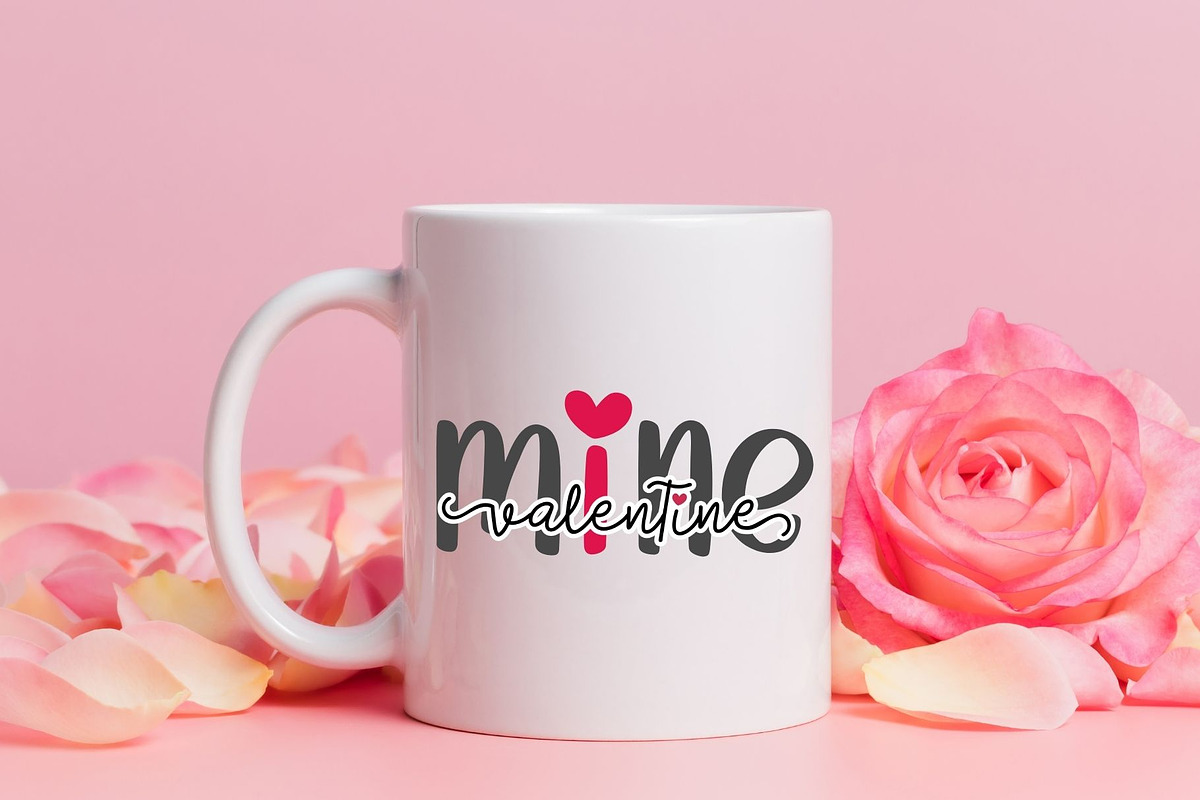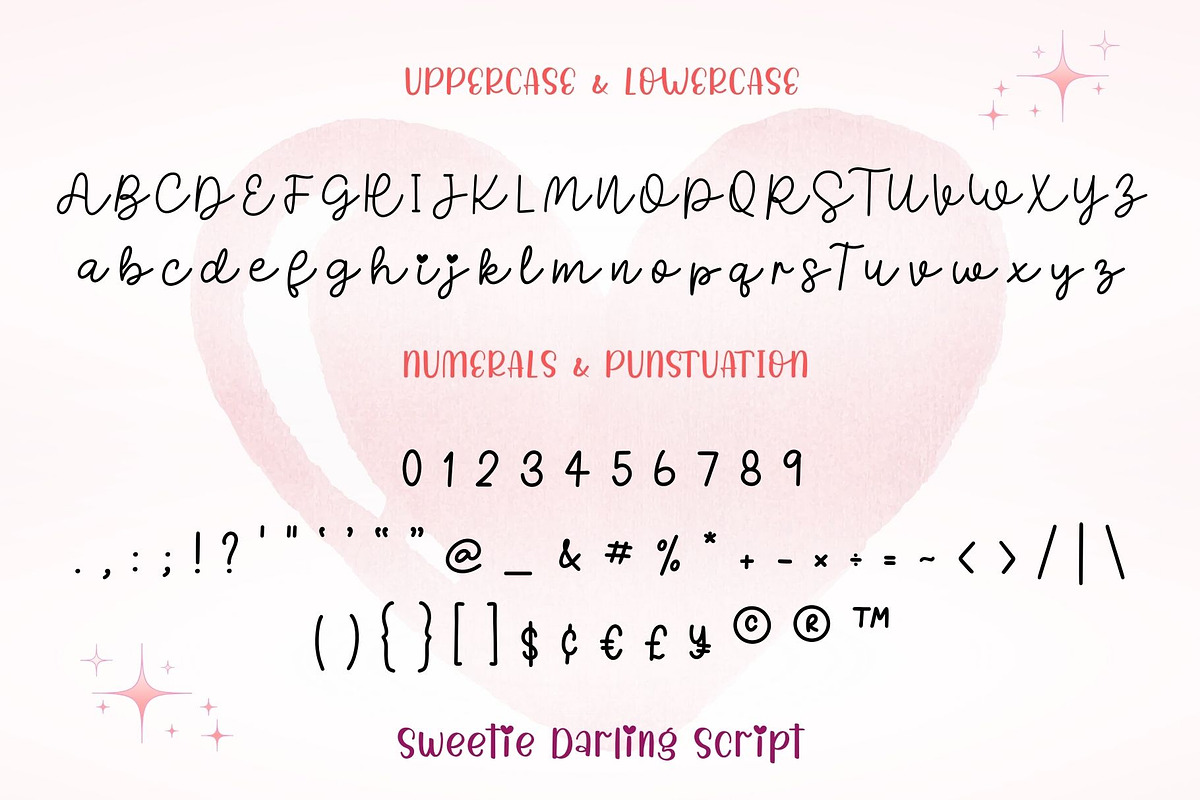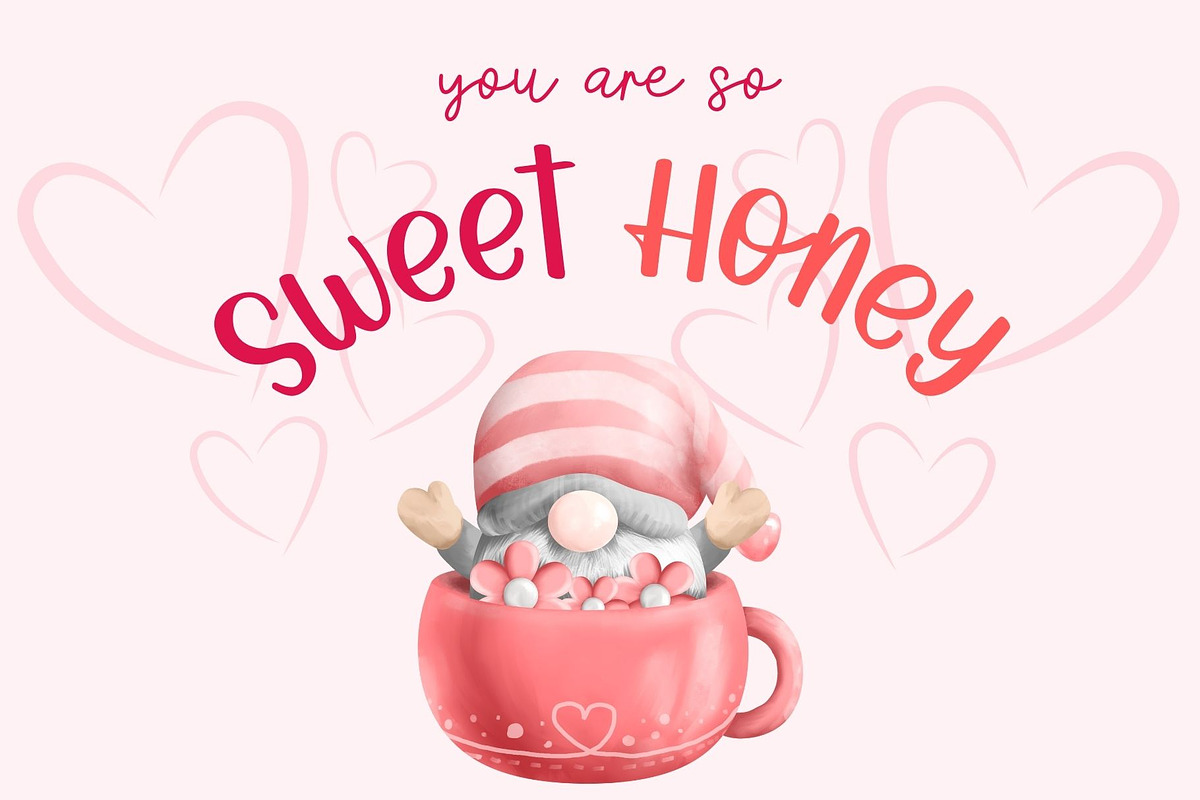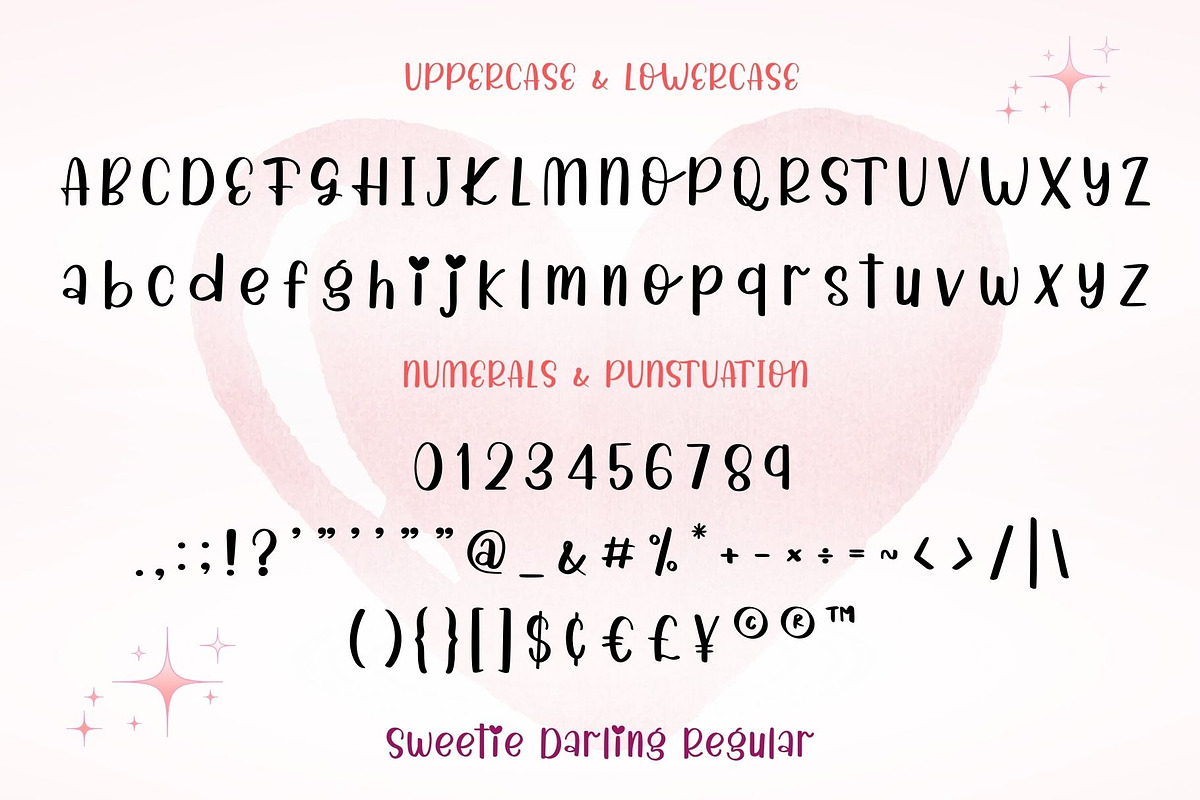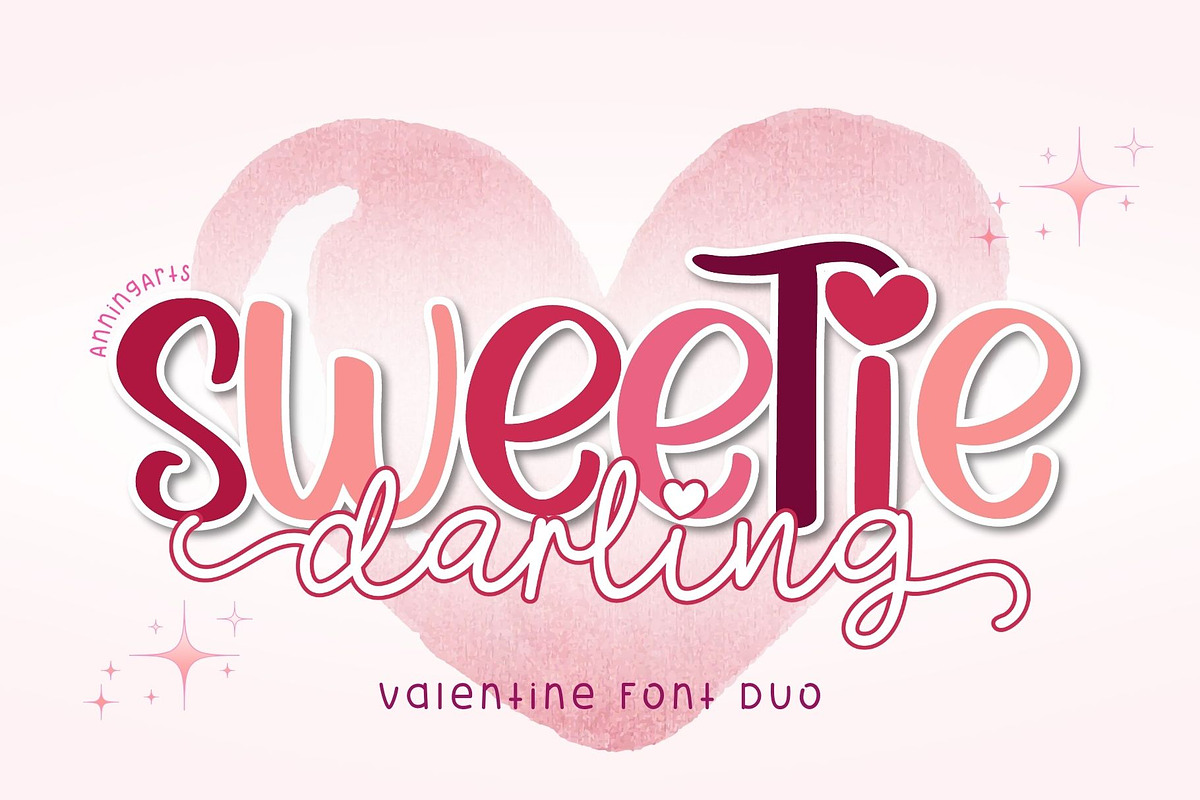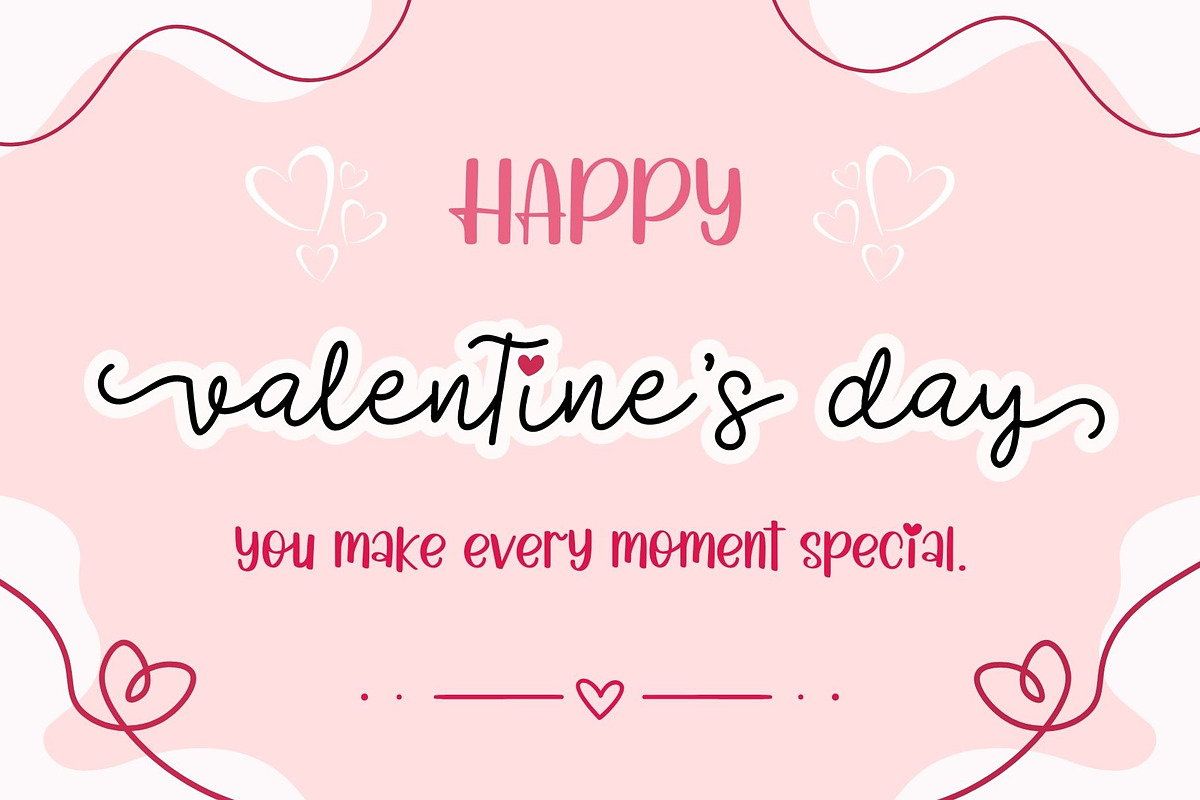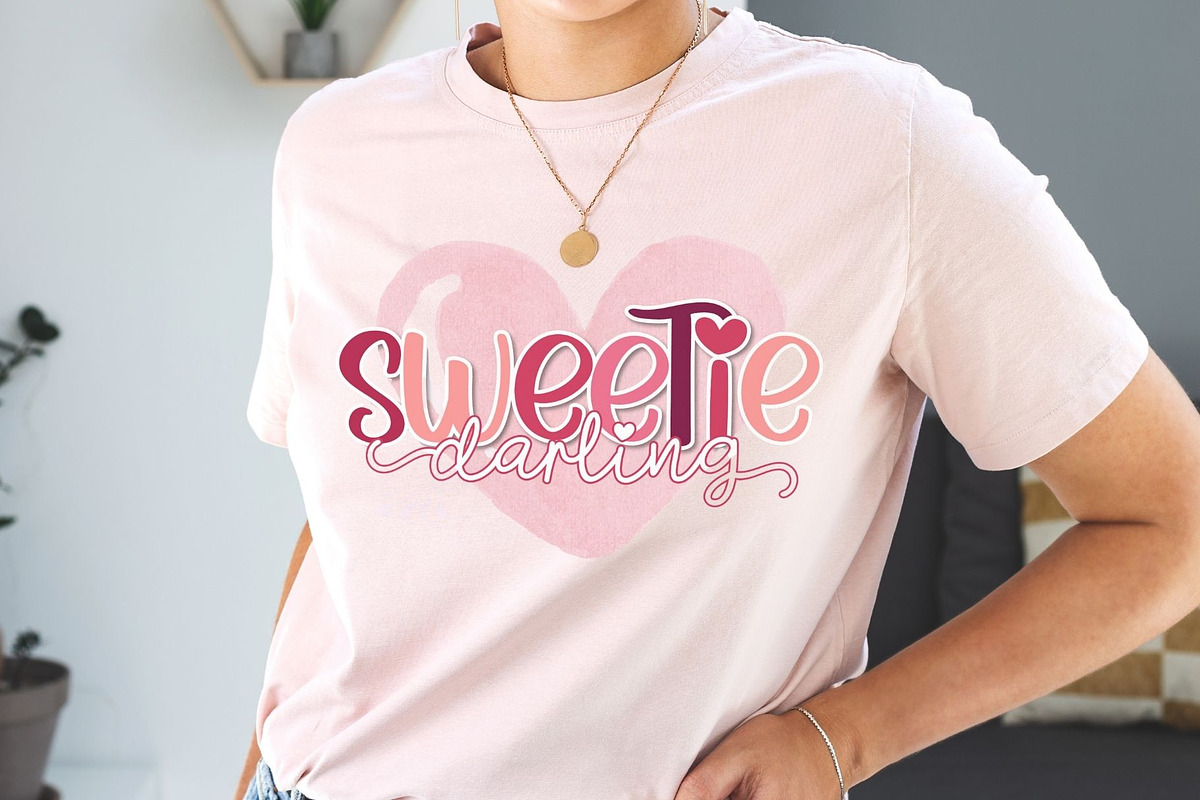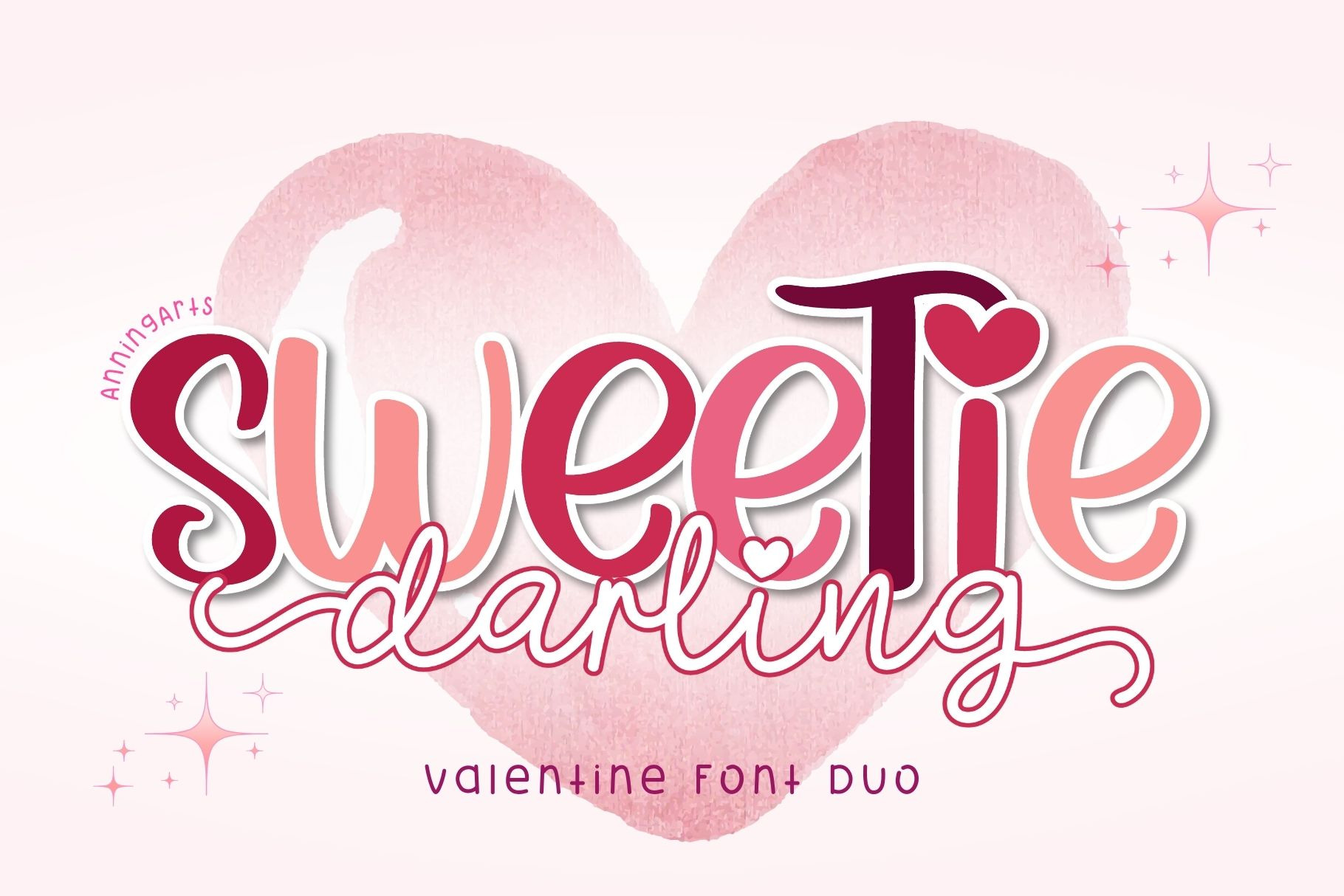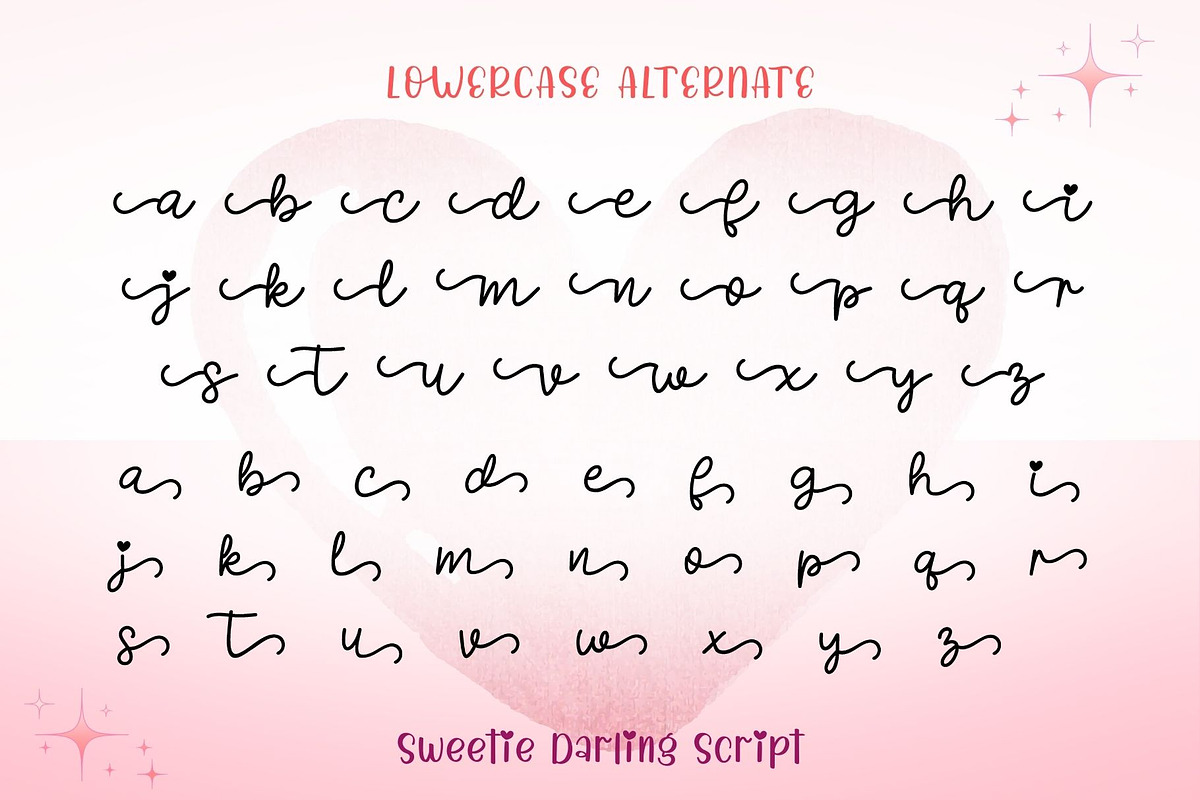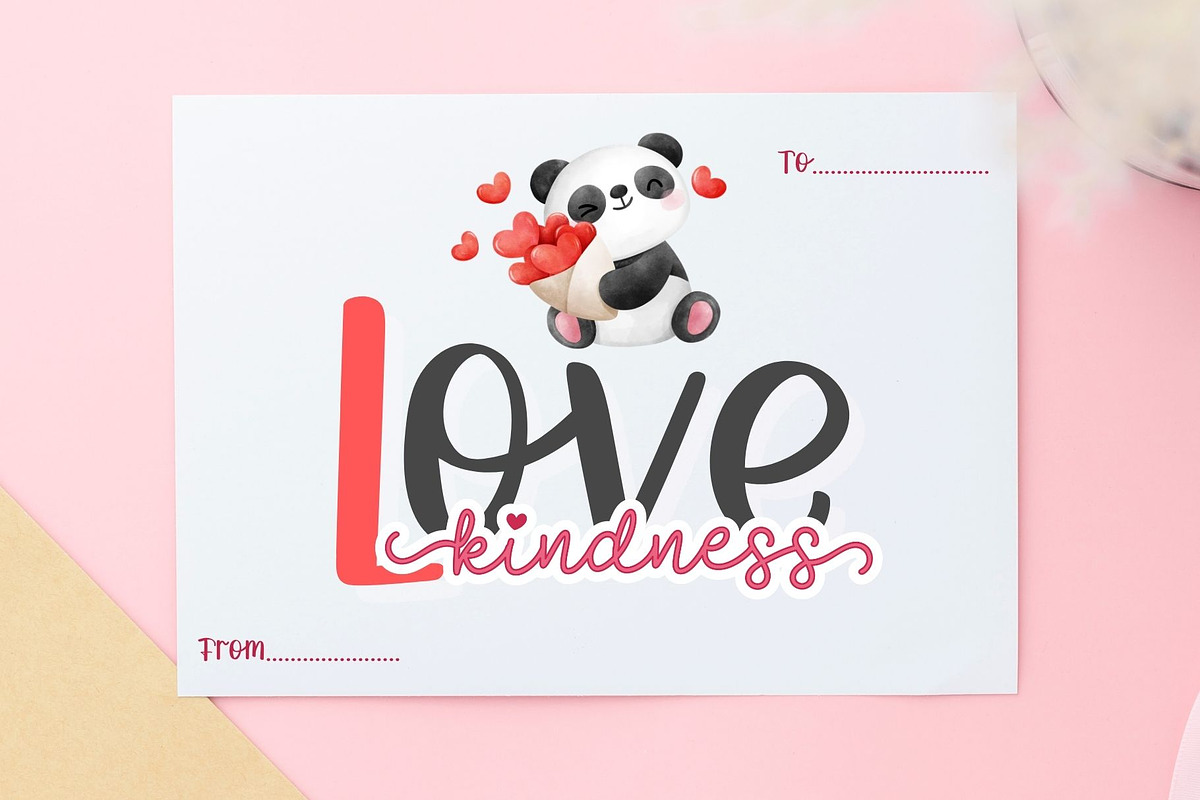
Sweetie Darling Font Duo
"Sweetie Darling" is a playful and charming font duo that exudes warmth and affection. Featuring bold, curvy letters along with a delightful combination of script and display styles, this font is perfect for designs that require a touch of romance and whimsy. It is ideal for greeting cards, wedding invitations, Valentine’s Day projects, and more.